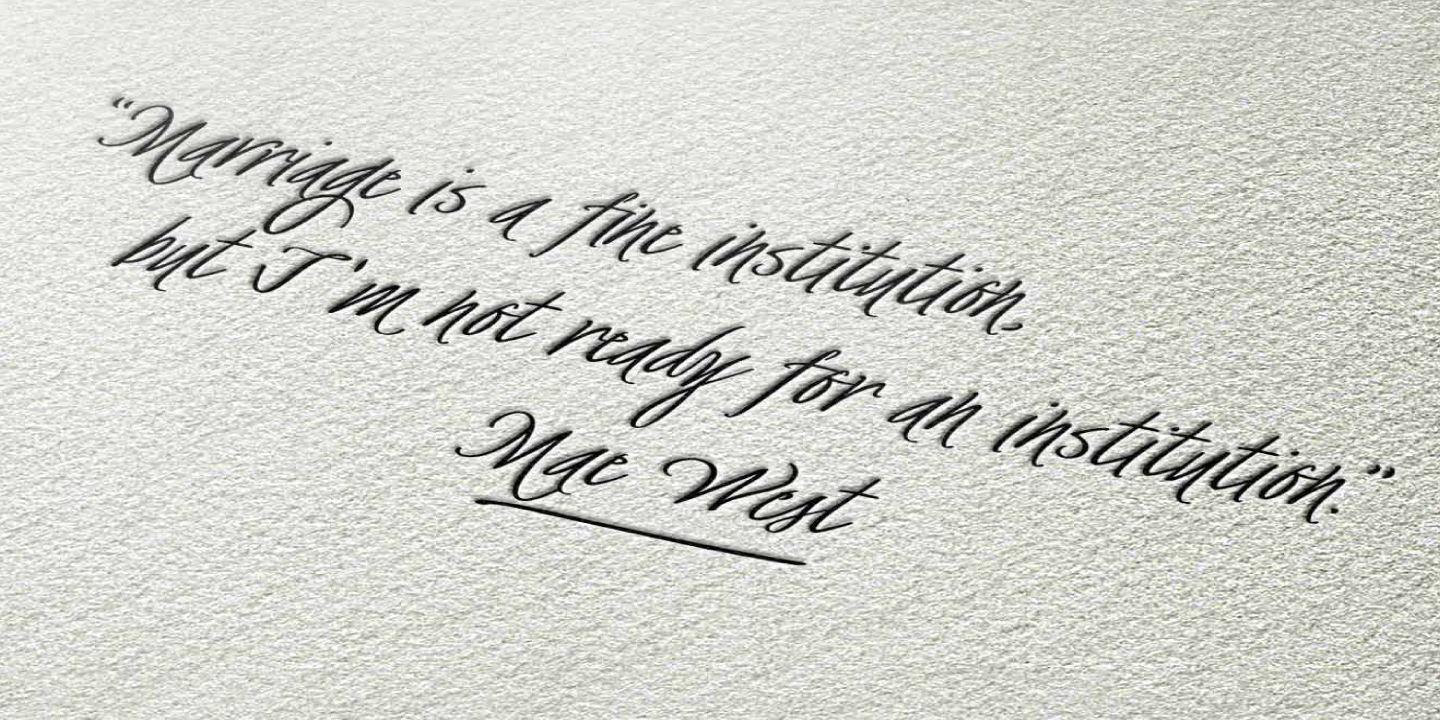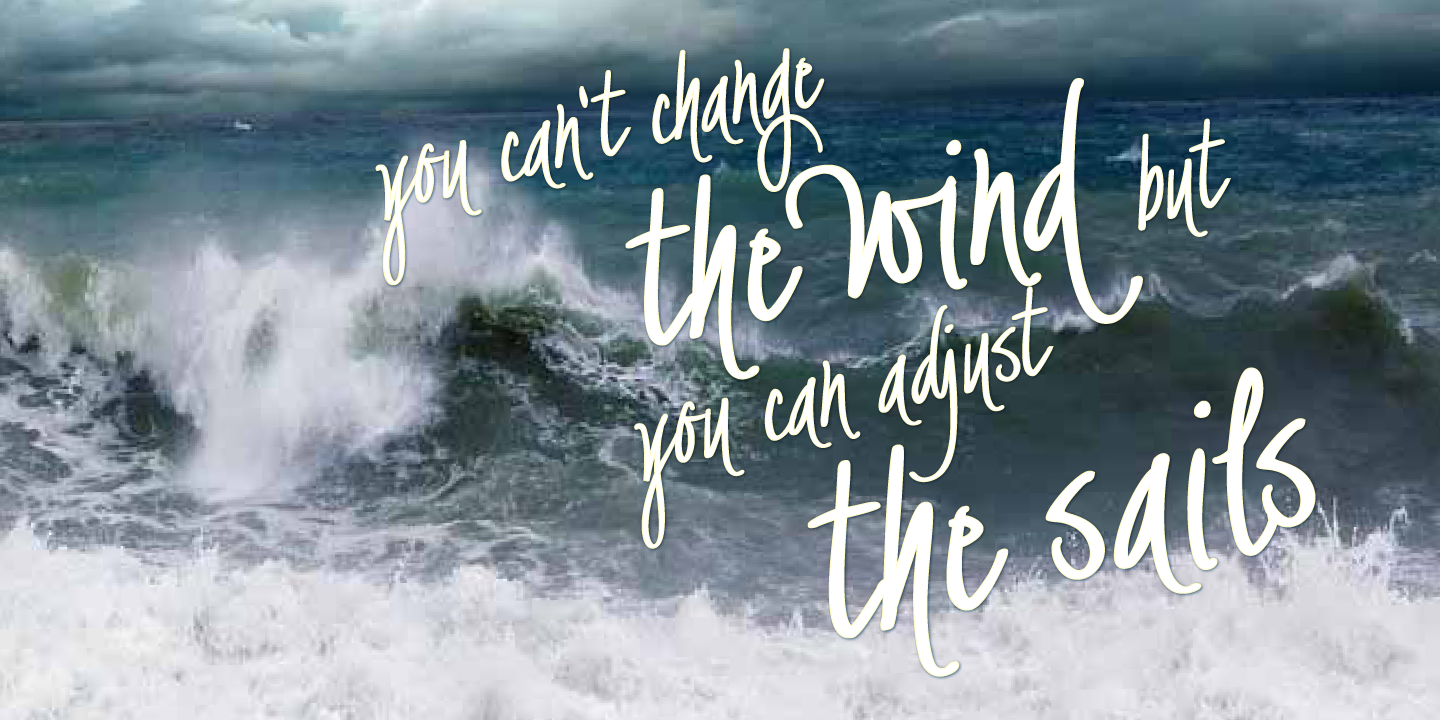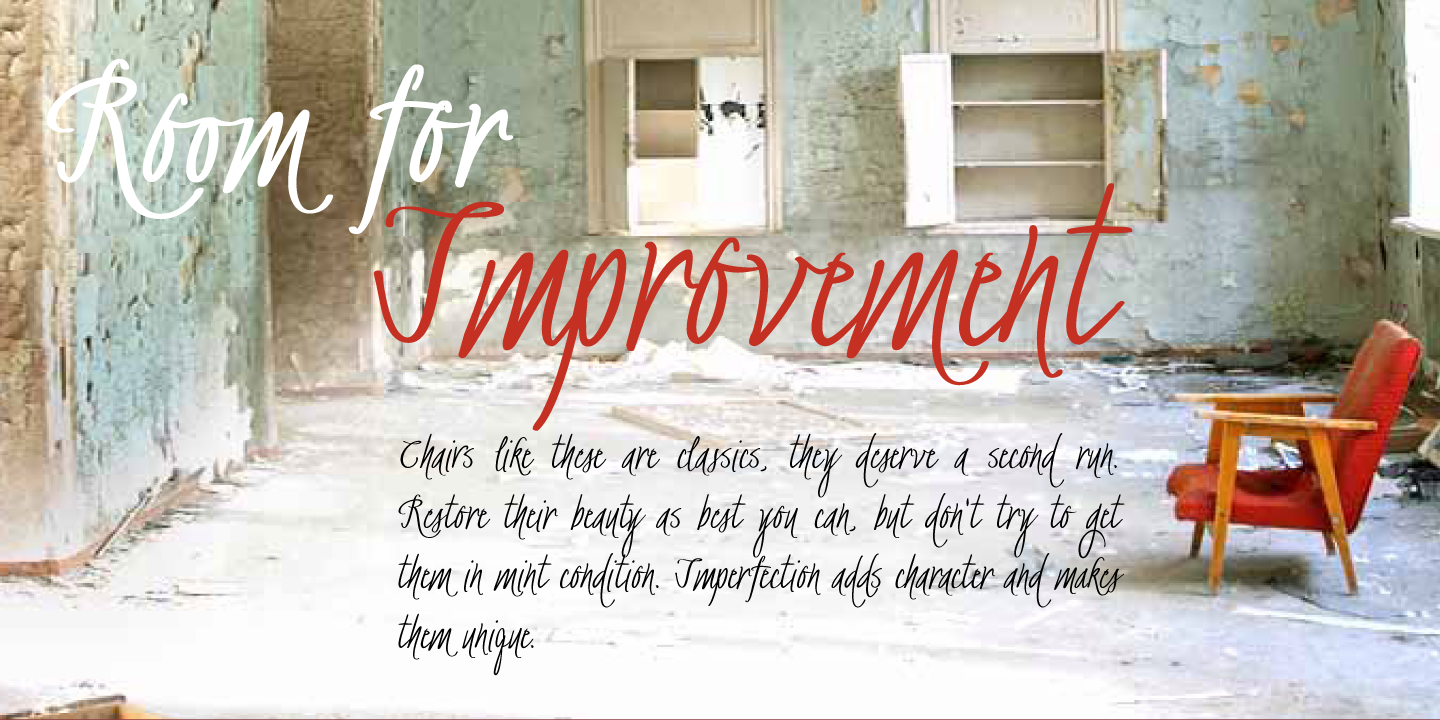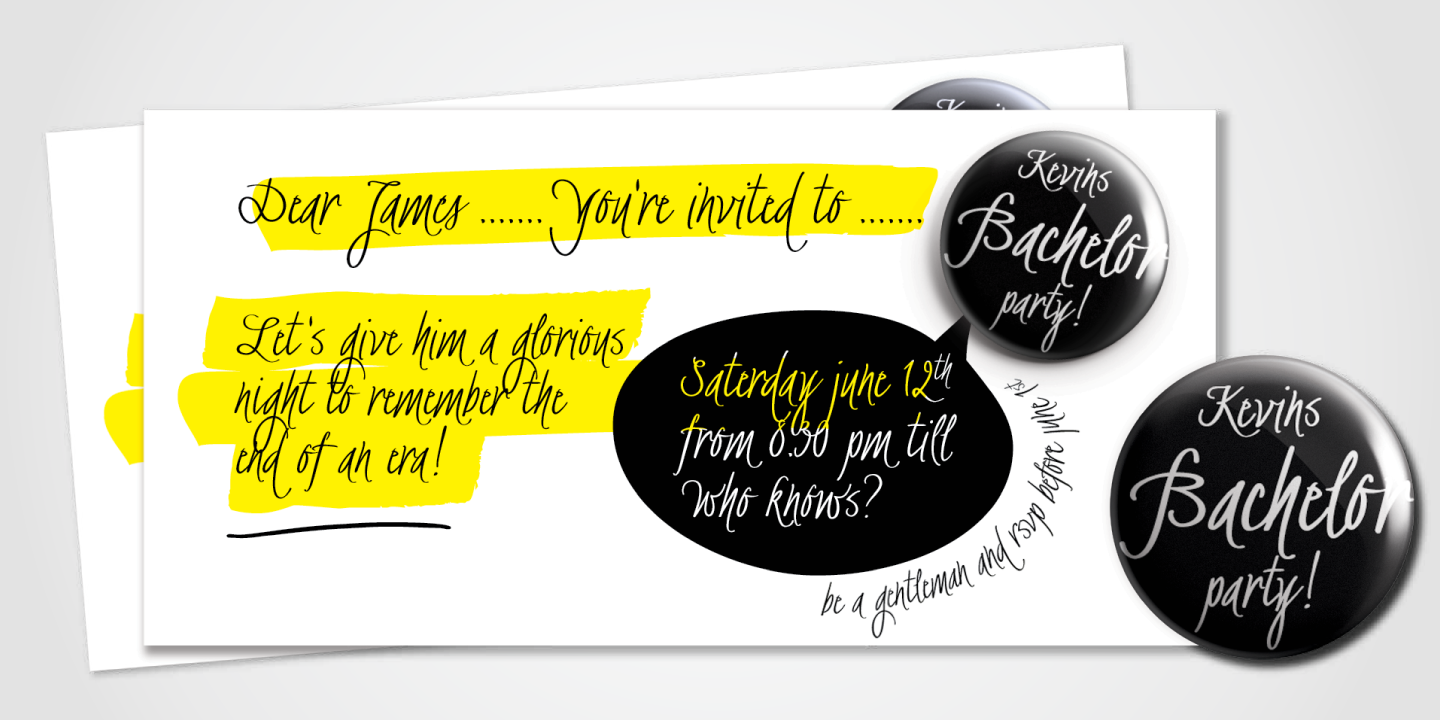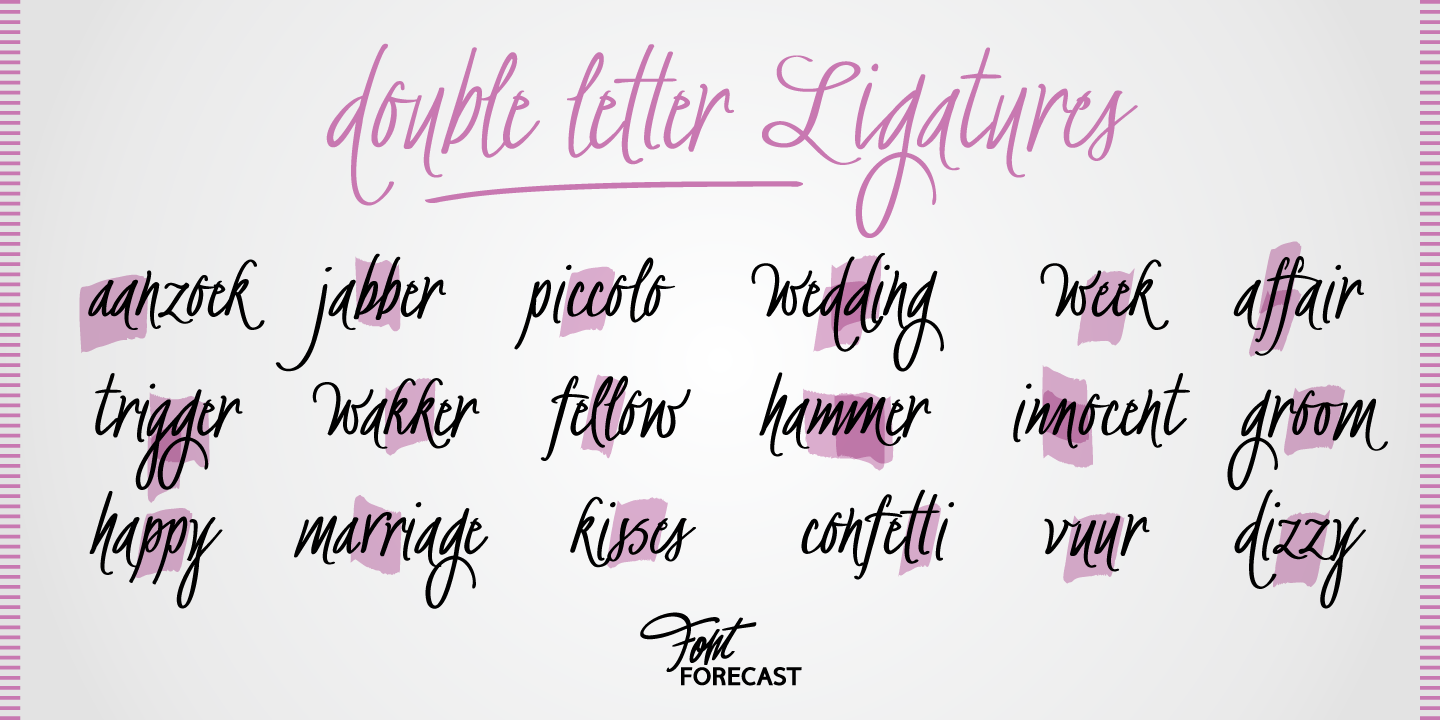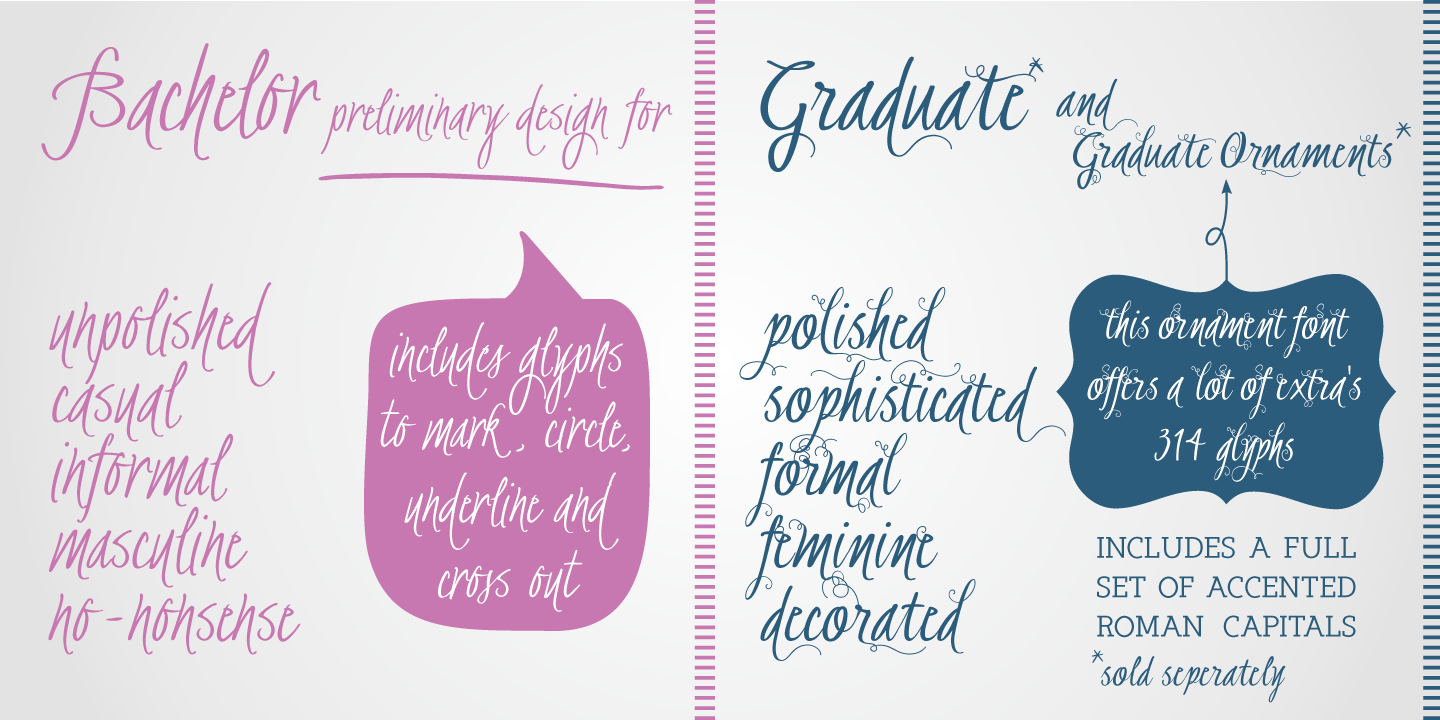
BachelorScript is the preliminary design for GraduateScript, released in june 2013. You can clearly see the resemblance between the two, but while Bachelor is frisky and authentic, Graduate is more polished and staged. GraduateOrnaments was originally designed to complement GraduateScript, but it can be used just as well in combination with BachelorScript. BachelorScript has a casual look and feel and comes in two weights: regular and bold. It offers multiple language support, five numeral styles, real fractions and ligatures for double letters. Various glyphs to mark, underline, circle or cross-out words are also included.